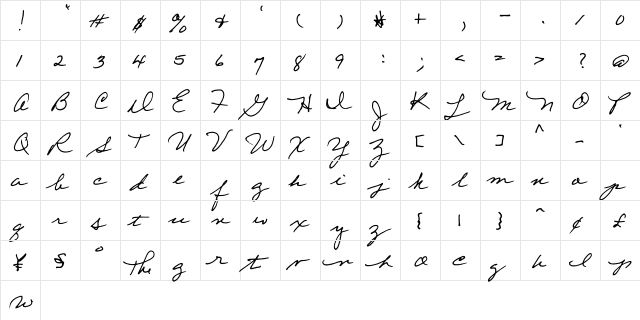
FG Rakel Regular
Design Context for FG Rakel Typeface
FG Rakel is a composed and adaptable typeface that performs quietly and consistently across a wide range of design contexts.